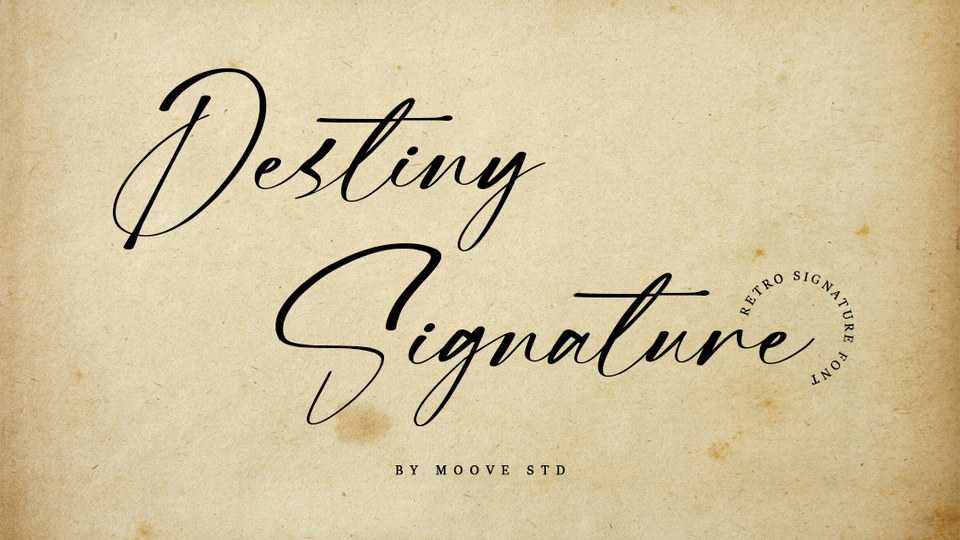
Download Destiny Signature font, a delicate and stylish script typeface, that exudes elegance and class. Destiny Signature was particularly crafted for a beautiful and refreshing look to their designs.